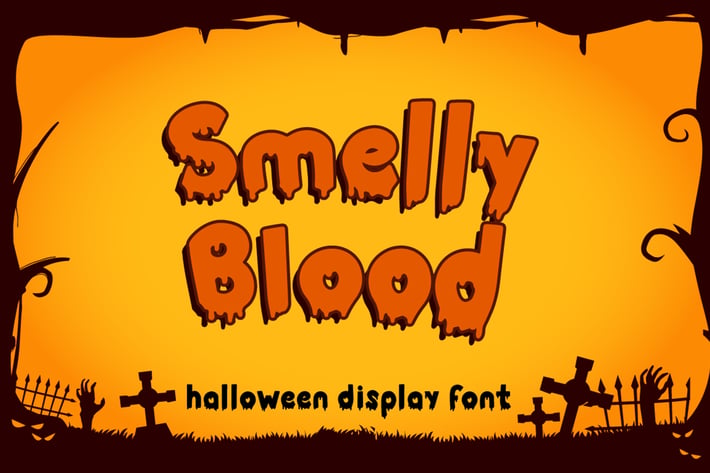
Smelly Blood - Halloween Font
Smelly Blood is a bold and quirky display font. Add this font to your creative ideas and notice how it will make them stand out!